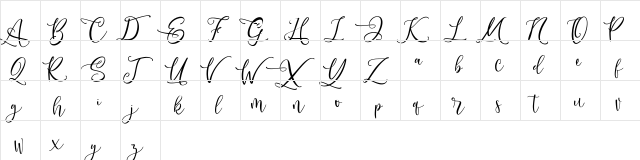
Andriani Script Regular
Design Context for Andriani Script Typeface
Andriani Script brings a calligraphic fluidity to the page — its connecting strokes and expressive curves give it an unmistakably human quality.
Font Pairing: Combine Andriani Script with a simple geometric sans for maximum contrast — the tension between flowing curves and clean structure is a classic typographic pairing.
Pro Tip: Pair Andriani Script with a clean sans-serif for supporting text. The contrast between fluid script and geometric structure creates an elegant typographic hierarchy.